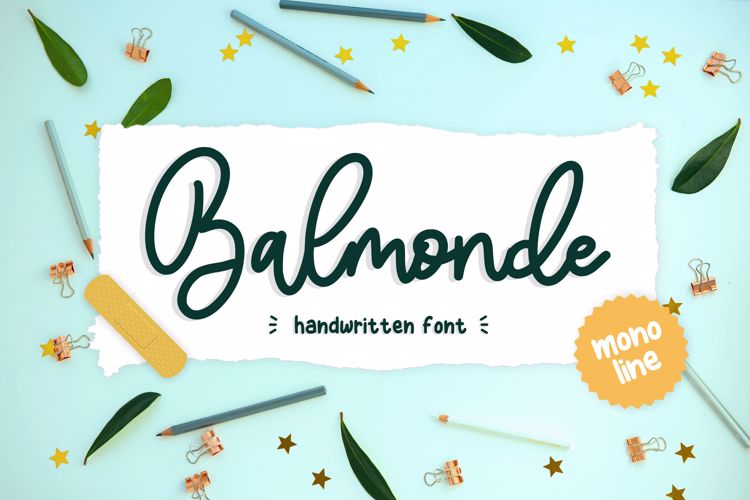
Balmonde Font
Proudly Present, Balmonde Handwritten Font.
Balmonde is a modern script font.
The characteristics of this font give a modern feel of handwriting.
Balmonde is perfect for product packaging, branding project, megazine, social media, or just used to express words above the background.